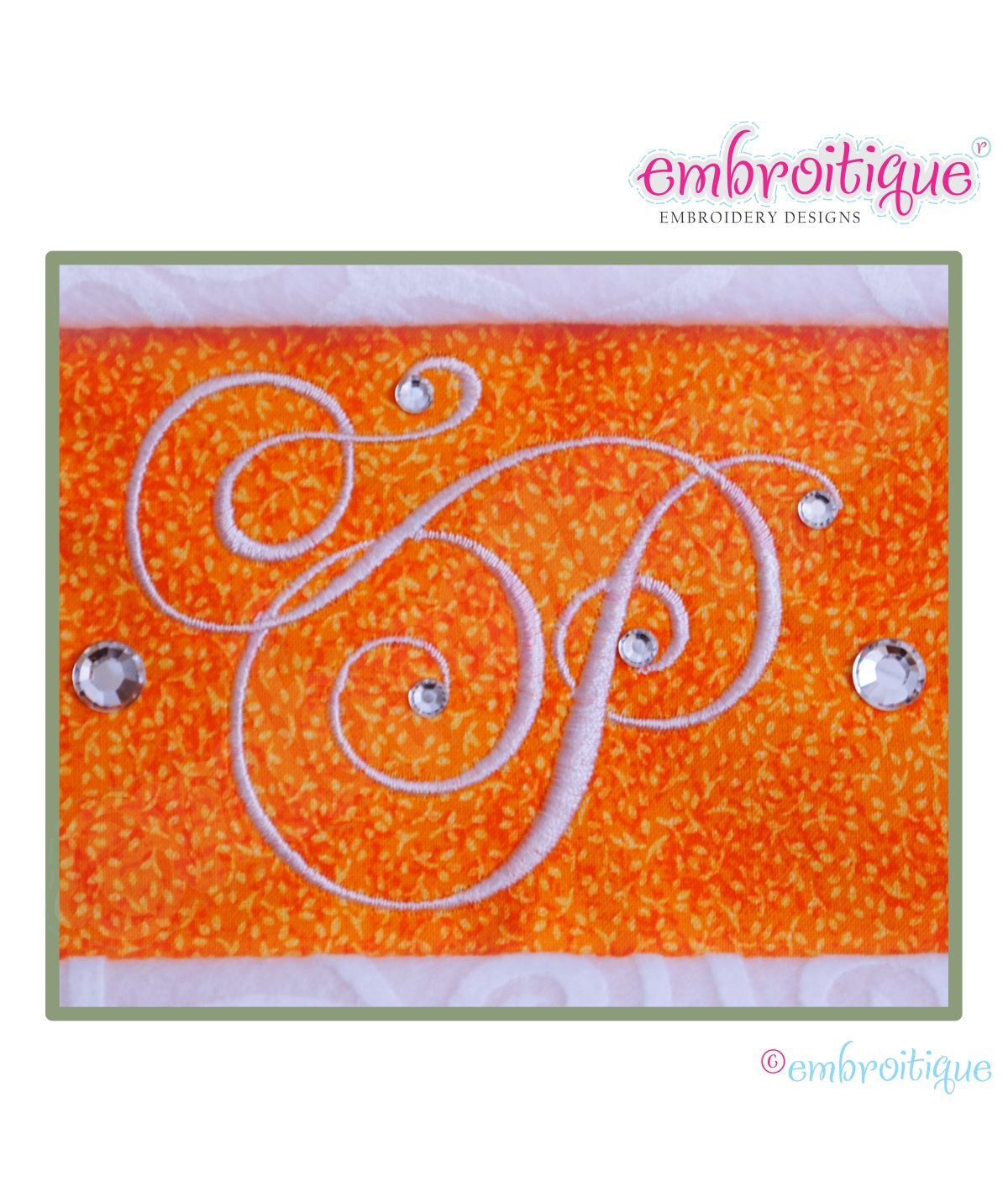
Charming Calligraphy Script Monogram Set - Small Caps Only - 1", 1.5", 2", 2.5"
This beautiful calligraphy monogram set is an Embroitique exclusive set! Check out all of our Calligraphy Script Designs!